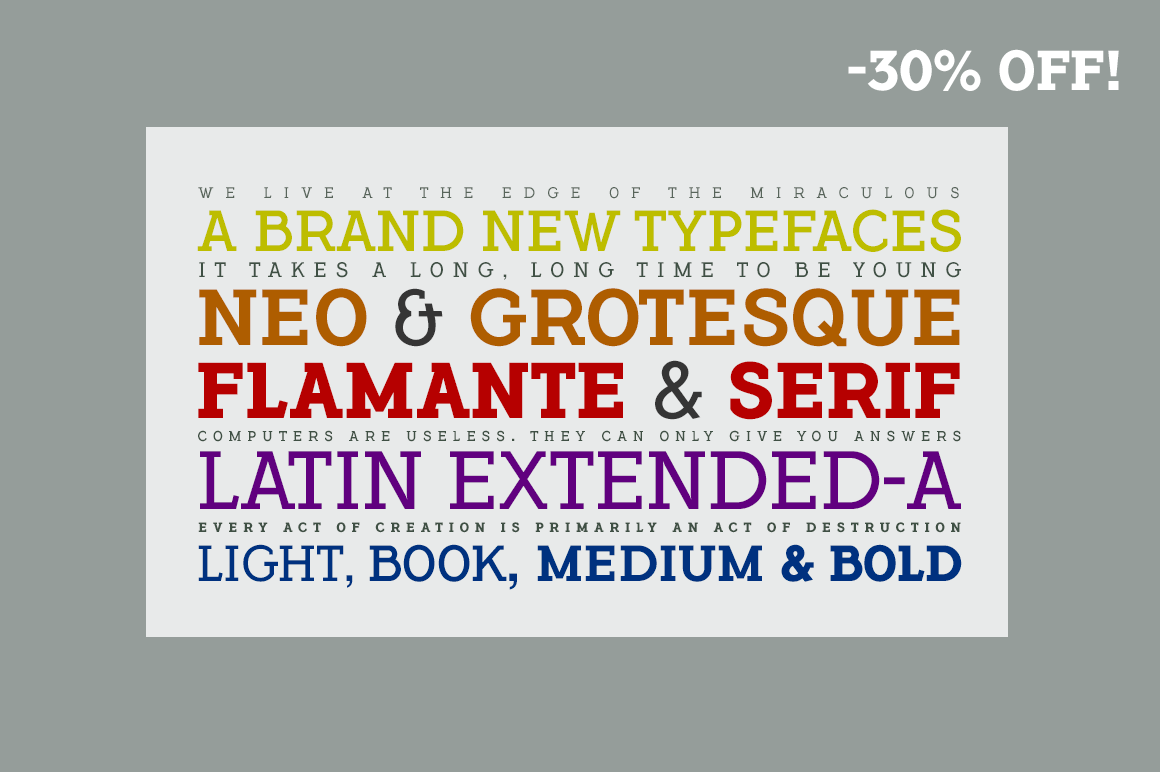
Flamante Serif -8 fonts-
Flamante Serif is a group of eight typefaces with thick slab serifs are presented in four weights: Light, Book, Medium and Bold and their corresponding italic versions. They are exclusive types, corporate, for any type of advertising design project, catalogs, logos, advertising, magazines or publications in general. They include the Bitcoin symbol (b#)
- Light, Book, Medium & Bold styles + Italics (8 fonts)
- 500 glyphs. Latin Extended-A • OTF & TTF
- OpenType Features: Capital Spacing, Extended Fractions, Ordinals, Slashed Zero, Standard Ligatures, Subscript, Superiors, Alternate Annotation Forms, All Alternates, Superscript, Additional languages, Superior letters, Scientific Inferiors, Oldstyle Figures, Historical Forms, Fractions, Discretionary Ligatures, Denominators, Historical Ligatures, Inferiors, Kerning, Localized Forms, Numerators.